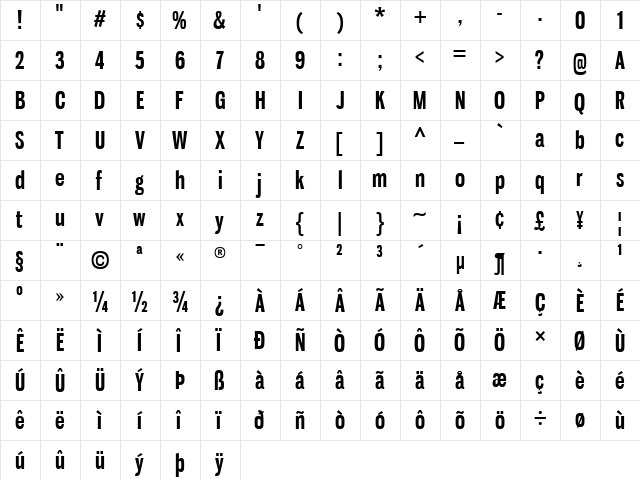
Gnuolane Regular Font Preview
Gnuolane Regular
Gnuolane Regular Font Details
Design Context for Gnuolane Typeface
Gnuolane offers clean, dependable letterforms without strong stylistic allegiance, making it a practical choice for designers who need flexibility.
Pro Tip: Use Gnuolane in both headline and body roles to test its range before committing to a single application.